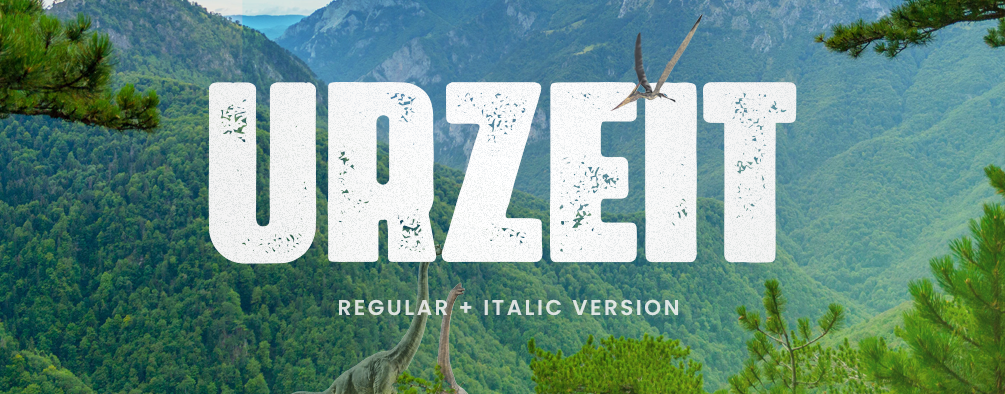
You are about to buy the commercial use version of "Urzeit" which is the rough version of our font "Mind the Caps". This includes both the Regular and Italic Style. Be sure to also check out "Mind the Caps" if you are interested in the clean version of this font too.